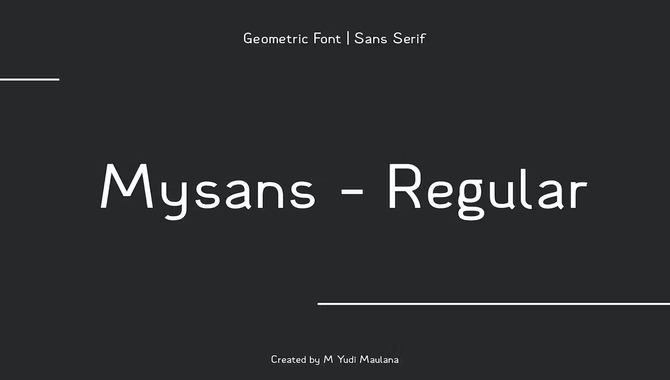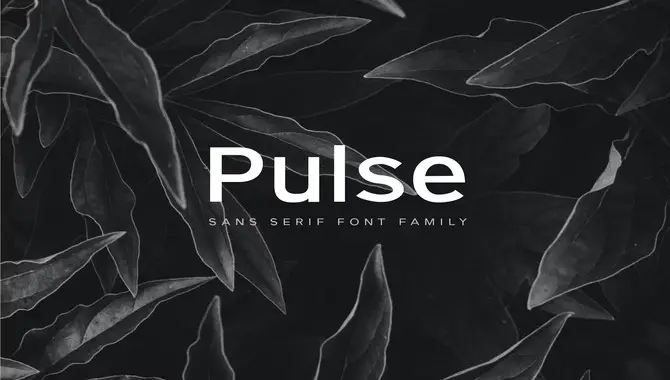
Myriad Pro Font is a widely-used sans-serif typeface that was created by Robert Slimbach and Carol Twombly in 2000. Its clean and modern look has gained popularity in graphic design and branding.
This versatile font is commonly used in advertising, logos, websites, and printed materials. Have you ever encountered a beautifully designed website or advertisement and wondered what font was used?
Here we will explore various typefaces that myriad pro font similar, each with its own unique characteristics and style. From Signia Pro Sans Serif Font to Clarity Nuvo – Clean & Modern Sans-Serif Typeface, we have curated a list of options for you.
So whether you’re a designer searching for the perfect typeface or curious about different fonts, this blog will help you find the ideal match for your next project.
Exploring Myriad Pro Font Similar Alternatives
Regarding to choosing the perfect typeface myriad pro font similar to your design projects, it’s important to explore alternatives to Myriad Pro font. While Myriad Pro is a popular sans-serif typeface known for its clean and modern appearance, numerous similar fonts can achieve a similar look and feel.
Considering these alternatives, you can expand your options and find the font that best suits your design needs. Here we will discuss the popularity and versatility of Myriad Pro font, the importance of finding alternatives, provide a comprehensive list of similar fonts, and offer tips on selecting the ideal typeface for your project.
Signia Pro Sans Serif Font
Signia Pro is a great choice if you’re looking for a font similar to Myriad Pro. This sans-serif typeface offers a clean and modern look, making it a good match for various design projects. With a wide range of weights and styles, Signia Pro provides versatility and allows you to create a hierarchy within your typography.
Its letterforms have a similar feel to Myriad Pro, giving your designs a sleek and professional appearance. Signia Pro can be used for desktop or web projects and is available for download through Google Fonts. It’s a fantastic alternative to the popular Myriad Pro font.
Preface Sans-Serif Typeface + Webfonts
PREFACE Sans-Serif Typeface + Webfonts is a fantastic alternative to the popular and versatile Myriad Pro font. With its clean and modern look, PREFACE offers elegant letterforms that can enhance various design projects.
PREFACE is a great choice for designers looking for a font similar to Myriad Pro to complement their creations. Its inclusion of webfonts ensures compatibility across different platforms, giving designers the necessary flexibility.
When considering a font similar to Myriad Pro, it’s crucial to prioritize legibility, style, and compatibility with your project’s aesthetic. PREFACE checks all these boxes, making it a good match for graphic design projects.
Pulse A Modern Sans-Serif Typeface
Pulse is a modern sans-serif typeface that shares some similarities with Myriad Pro. With clean lines and a contemporary aesthetic, Pulse suits various applications. Whether you’re designing a logo, website, or print materials, Pulse can be a great choice.
Its versatility and compatibility with different devices and software make it a good match for various design projects. When looking for a font similar to Myriad Pro, consider Pulse and its clean and modern look. Create a consistent visual identity with Pulse and achieve a professional and polished look for your designs.
Mysans M Sans Serif Font
Mysans M is a fantastic alternative to the myriad pro font, adding a clean and modern touch to your designs. With its wide range of weights and styles, Mysans M is versatile and adaptable, making it suitable for various design applications.
Whether you’re working on a logo, website, or printed materials, Mysans M can provide a sleek and professional look, enhancing your project’s overall look and feel. This font is a great match for those seeking a font similar to Myriad Pro that offers readability and a contemporary aesthetic.
Metzler Minimal Sans-Serif Typeface + Web Font
Metzler Minimal Sans-Serif Typeface is an excellent alternative to Myriad Pro font. Its clean and minimalist design makes it a great option for various projects. Whether designing a website, working on a logo, or creating printed materials, Metzler can provide your typography with a sleek and modern look. Its web font version ensures your typography remains consistent across different devices and browsers.
When selecting a font similar to Myriad Pro, it’s important to consider your project’s specific requirements and the overall aesthetic you aim to achieve. Metzler Minimal Sans-Serif Typeface is a top-notch alternative that ticks all the boxes.
Clarity Nuvo – Clean & Modern Sans-Serif Typeface
Clarity Nuvo is a clean and modern sans-serif typeface that can be a great alternative to Myriad Pro. This font is suitable for many design applications with its clean lines, contemporary feel, and legible look.